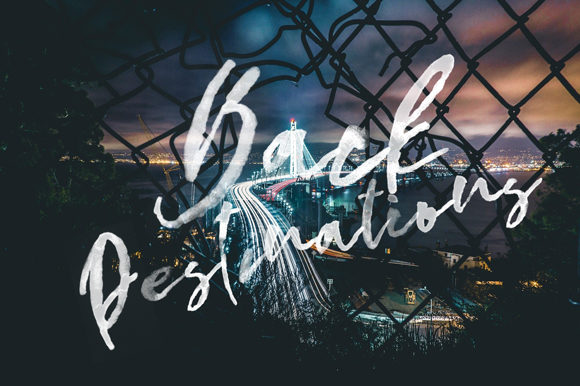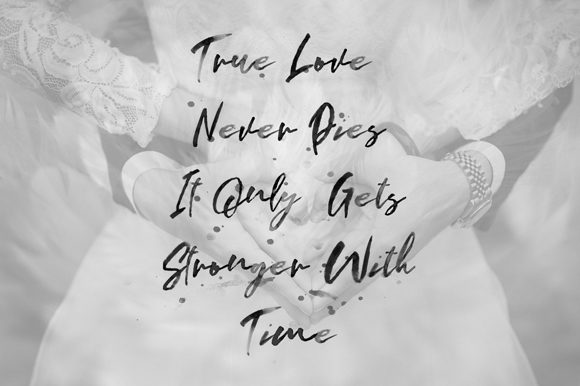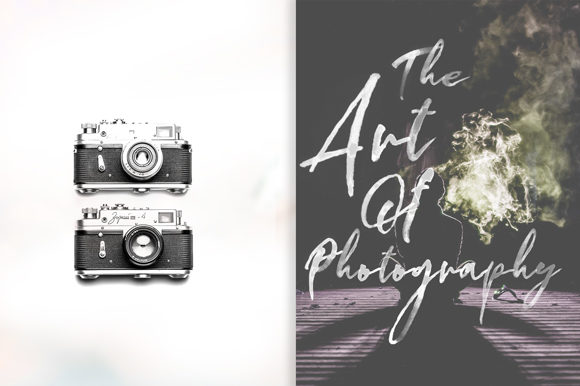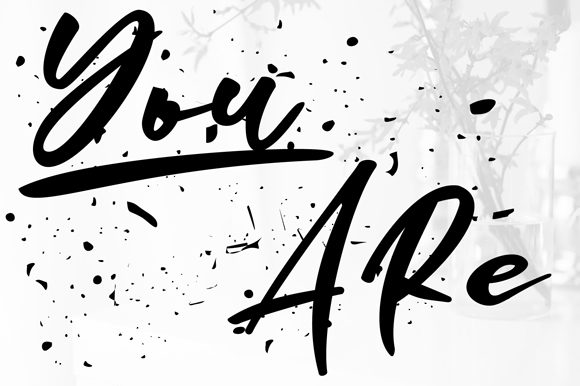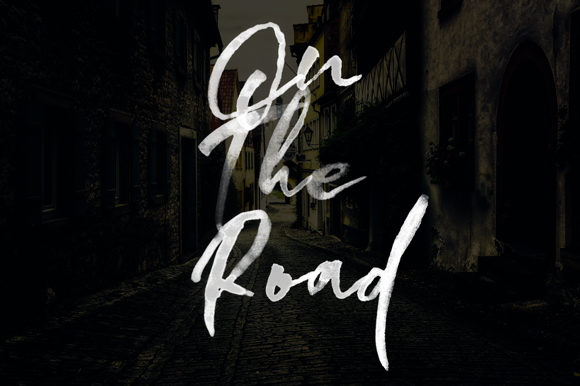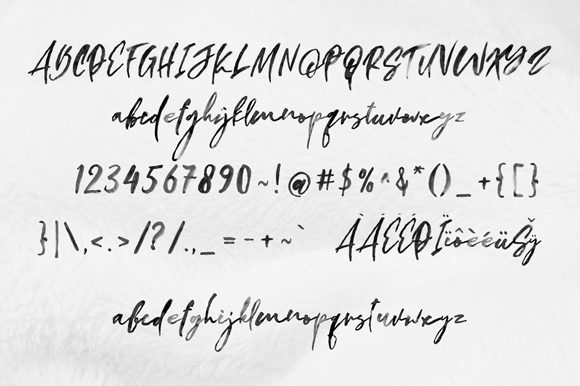
Introduction to OnsFina Font
As a designer, there’s nothing quite like the thrill of bringing a creative project to life. You spend hours pouring over ideas, experimenting with different styles, and tweaking every detail until it’s just right. And then, the moment of truth: you finally get to see your design in all its glory. For many of us, that’s the ultimate rush – but what if I told you there’s a secret ingredient that can take your designs from good to great?
Enter the OnsFina Font, a stunning paint-brushed handwritten font that’s sure to elevate your creations to new heights. With its beautiful, artistic feel, this font is the perfect addition to any design resource. Whether you’re working on a project with a transparent background or looking for a unique way to add some personality to your text, the OnsFina Font is a game-changer. And the best part? It’s available for a free download, so you can get creative without breaking the bank.
Key Features of OnsFina Font
• High-quality design resource ideal for creative projects, available for free download.
• Unique, modern design with a transparent background, allowing for versatile usage in various design contexts.
• Includes a comprehensive character set, covering a wide range of languages and characters.
Honest Review: OnsFina Font
I recently had the chance to work with the OnsFina Font, and I must say it’s a great addition to any design resource. One of the things I like most about it is its clean and modern aesthetic, making it perfect for creative projects that require a touch of sophistication.
The font itself is incredibly versatile and can be used for a wide range of applications, from branding to editorial content. I also appreciate the fact that it comes with a transparent background, which allows for seamless integration into any design.
• High-quality design that looks great on any screen
• Perfect for creative projects that require a modern touch
However, I do have to mention a few limitations:
• ⚠️ Limited language support, which may be a concern for designers working on international projects
• ⚠️ Not ideal for projects that require a bold or playful font style
Overall, I’m really impressed with the OnsFina Font and would definitely recommend it to designers looking for a high-quality, modern font. With its versatility and sleek design, it’s a great addition to any design resource.
Tips for Getting the Most Out of OnsFina Font
For the best results, use the OnsFina Font with a transparent background to create a clean and modern design. This high-quality font is ideal for various creative projects, including logos, brochures, and presentations.
The OnsFina Font is commonly used for creative projects that require a modern and professional touch. Its transparent background and high-quality design make it an ideal choice for logos, brochures, and presentations.